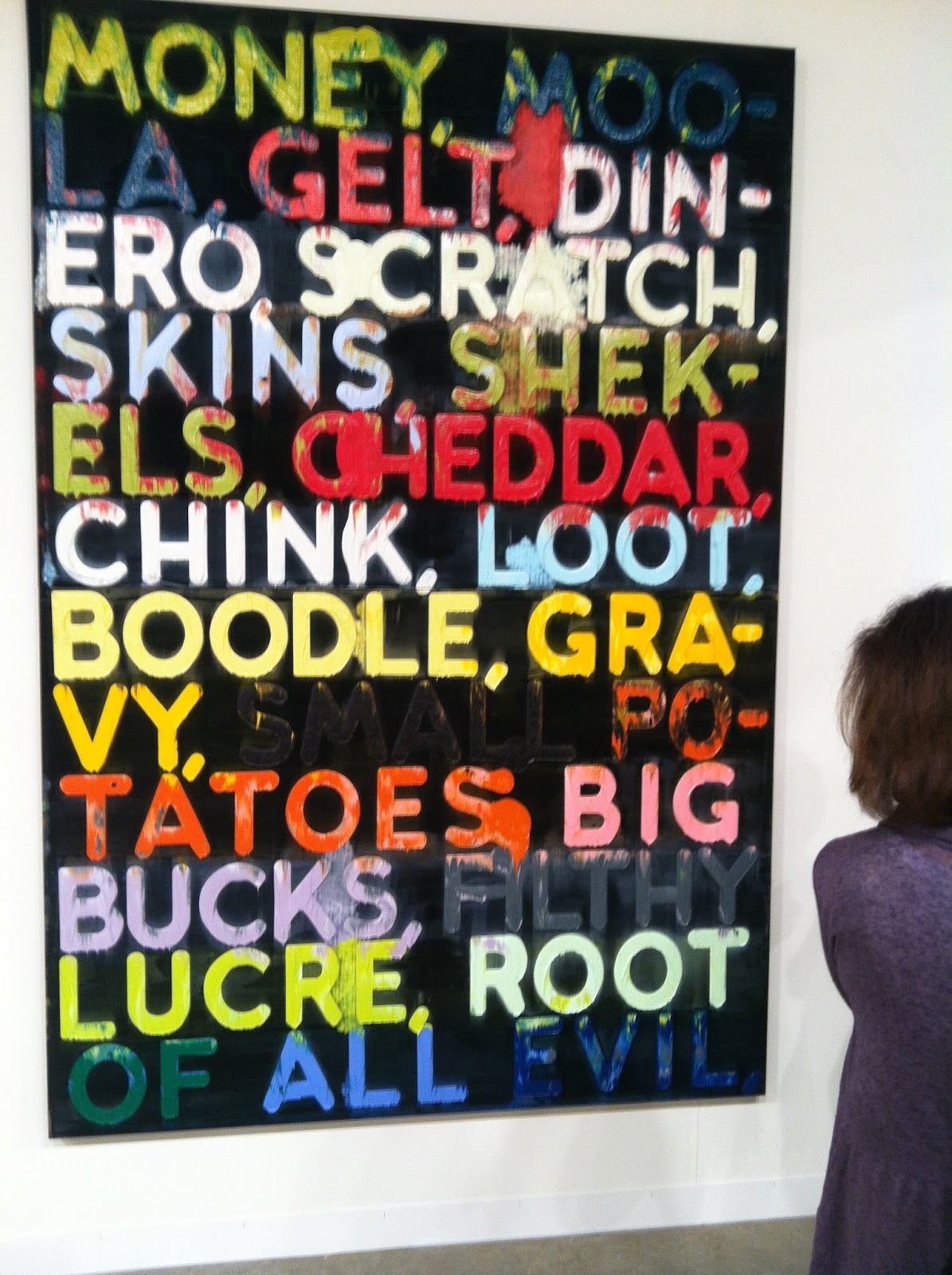
Keith Haring: A lucky look at his original journals and sketches
One of the most prolific 20th century artist whose work continues to inspire so many.
Finally we are able to leaf through his private journals that I believe to be some of his most intimate and thoughtful work as he stages work for his next projects or indicates some introspection about his past projects. Just wonderful to see.
I salute each of you who are writing in your journals, your diaries, your sketchbooks and your on line private blogs.
Journals, Sketchbooks and Designbooks
The Fruitmarket Gallery is proud to present this exhibition of the work of Dieter Roth (1930-1998), one of late-twentieth-century art's major figures. Roth was an artist of astonishing breadth and diversity, producing books, graphics, drawings, paintings, sculptures, assemblages, and installation works involving video, sounds, and recordings. He was also a composer, musician, poet, and writer.
Art and life for Roth flowed readily into each other, and much of the material for his artistic output came from his everyday life.
This exhibition is the first to focus on the theme of the diary in Roth's work. Roth kept a diary throughout his life, and saw all art-making as a form of diary keeping. His diaries were a space to record appointments, addresses, lists, and deadlines but also ideas, drawings, photographs, and poems. They teem with graphic exuberance, and proved a rich source for his work. The Fruitmarket Gallery is fortunate in being able to show Roth's diaries to the public for the first time, as well as the hand-produced, photocopied 'copybooks' he made from them to sell to favored collectors and friends, and two major installation works.
Julian Schnabel: Art and Design
The american artist Julian Schnabel became famous in the early 1980s for his plate paintings.
He also made a name for himself as a director and screenplay writer with his first film, which was about his friend and fellow artist, "Jean-Michel Basquiat" (1996) and his second film, "Before Night Falls". He has exhibited in all the world's greatest museums and his works can be found in outstanding public and private collections.
In this short Schnabel talkes about his series of over painted Polaroids. The original Polaroids Schnabel used a huge, spectacular 20 x 24-inch Polaroid camera on wheels dating from the 1970s to create unusually large-format images (51 x 61 cm) which are now exhibited at the NRW-Forum in Düsseldorf (30.05.-11.07).
music by Julian Schnabel/used by permission I recently purchased two prints by Julian Schnabel when I was in London. They are fantastic and huge prints (signed and numbered.) I wanted to share them with you.
I have always loved how he used very traditional methods of painting or creating artwork and then
he
would go into his jar of paintbrushes and create typography that was
unique to his own handwriting. It is a mix of art and type and image for
me.
Two Typefaces Walk Into A Bar....
So.....Two Typefaces walk into a bar....
Remember that experiment last fall in Advanced Typography?
Well, someone has gone and done a Typeface Dating Site. Yeap.
Books on Typography You Should Know
Three Films You Need to See About Typography
Typeface: The Movie
In rural Wisconsin, a lone employee waits in a cavernous old museum for visitors to come. A few individuals straggle in every few days and then, come Friday, the museum fills with life. Machines hum, presses print, artists buzz about. One weekend each month, the quiet of Two Rivers is interrupted as carloads of artisans drive in from across the Midwest. The place comes alive as printmaking workshops led by, and filled with, some of the nation's top design talent descend on the sleepy enclave.
In a time when people can carry computers in their pockets and watch TV while walking down the street, Typeface dares to explore the twilight of an analog craft that is freshly inspiring artists in a digital age. The Hamilton Wood Type Museum in Two Rivers, WI personifies cultural preservation, rural re-birth and the lineage of American graphic design. At Hamilton, international artisans meet retired craftsmen and together navigate the convergence of modern design and traditional technique. But the Museum¹s days may be numbered. What is the responsibility of artists and historians to preserve a dying craft? How can rural towns survive in a shifting industrial marketplace where big-box retailers are king.
Linotype: The Movie
Linotype is a full-feature documentary featuring the Linotype casting machine. The film features the charming and emotional story of the people connected and impacted by the Linotype machine. The documentary also features the struggle of the highly-skilled operators of the machine against the lack of interest on the machine. It’s a melancholic yet enlightening film about preserving the past and looking forward to a better future.
your timeline and how you got here at this very minute.